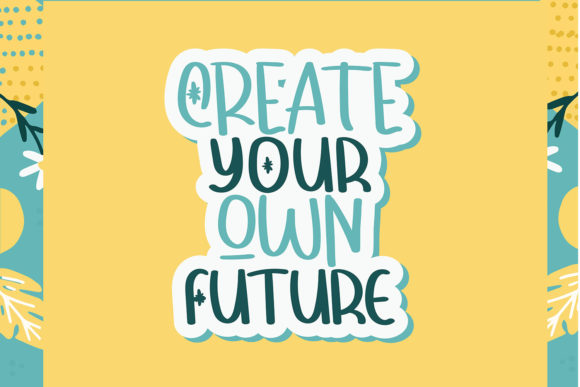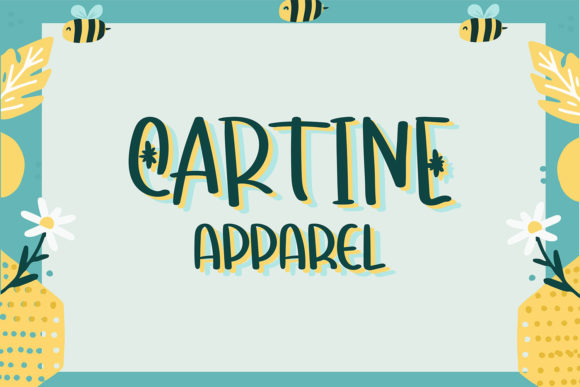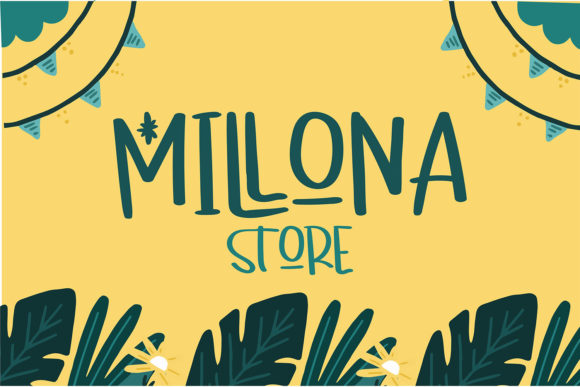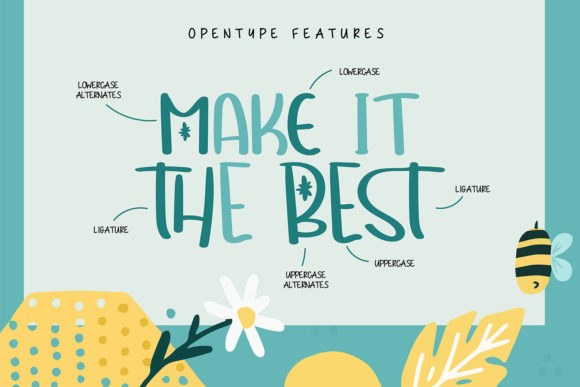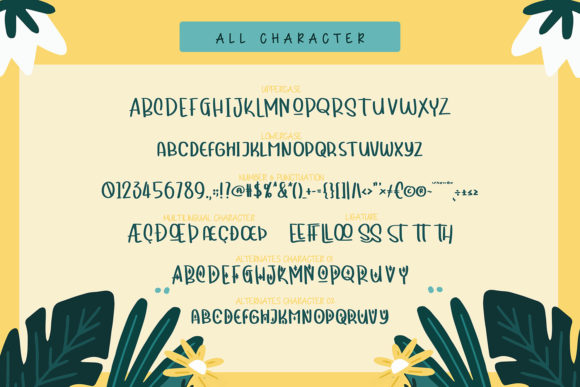
Introduction to Happy Honey Font
Have you ever found yourself sitting at your desk, staring blankly at a blank sheet of paper, searching for that perfect spark to ignite your creative project? The words just aren’t flowing, and your mind is a jumble of ideas and inspiration. But then, suddenly, it hits you – the perfect font, the perfect design element that brings your vision to life. For many designers, that moment is what makes all the hard work worth it.
For those moments of creative epiphany, we’re excited to introduce the Happy Honey Font, a beautiful and high-quality handwritten font that’s sure to become your go-to design resource. With its natural, casual feel and transparent background, Happy Honey Font is the perfect addition to any creative project.
Key Features of Happy Honey Font
- Happy Honey Font features a transparent background, allowing for seamless integration with any design.
- Unique characteristics: Whimsical, playful, and modern design elements, perfect for adding a touch of happiness to any creative project.
Honest Review: Happy Honey Font
I recently had the chance to experiment with the Happy Honey Font, and I must say it’s been a great addition to my design resource library. As a creative project enthusiast, I’m always on the lookout for high-quality fonts that can elevate my work.
Here’s what I liked about the Happy Honey Font:
- ✨ Beautiful, hand-drawn design that adds a touch of warmth to any project.
- ✨ A wide range of characters, including accented letters and punctuation marks.
- ⚠️ Limited font size options, which can be a challenge for designers working on large-scale projects.
- ⚠️ Not as versatile as some other fonts, making it less suitable for complex designs.
Overall, I’m impressed with the Happy Honey Font, and I’d definitely recommend it to designers looking for a high-quality, free font for their creative projects. While it may have its limitations, its unique design and transparent background make it a valuable addition to any design library.
Common Use Cases for Happy Honey Font
The Happy Honey Font is versatile and can be used in various creative projects, including:
– Social media graphics
– Brochures and flyers
– Branding materials